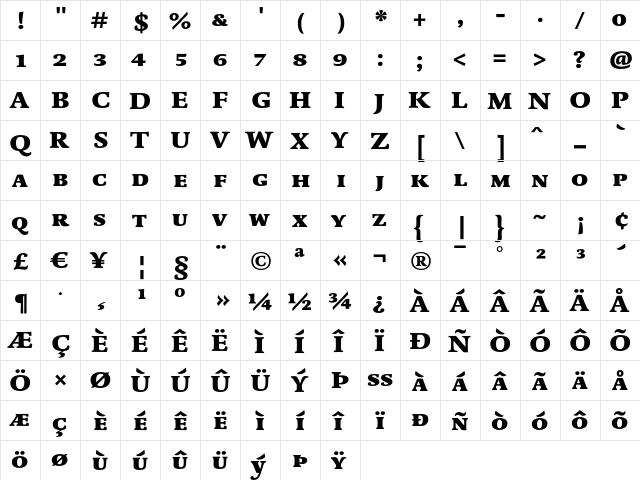
DTLDorianTCaps Heavy
Design Context for DTLDorianTCaps Typeface
DTLDorianTCaps offers clean, dependable letterforms without strong stylistic allegiance, making it a practical choice for designers who need flexibility.